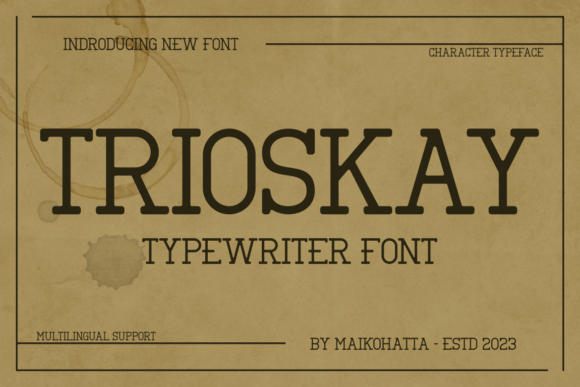
Introducing Trioskay Font, the epitome of elegance and sophistication in the world of design graphics. This mesmerizing serif font, created by the brilliant mind of maikofarazhatta, seamlessly blends traditional elements with the nostalgic charm of a typewriter. Prepare to embark on a journey through time as this font transports you to the golden era of design.
Are you tired of mundane and overused fonts that fail to capture attention? Trioskay Font is here to revolutionize your creative projects. It injects a breath of fresh air into any design, infusing it with a classic feel that is unmatched. With its vintage undertones, this font is the missing puzzle piece that will elevate your work to new heights of aesthetic brilliance.
Imagine the impact of Trioskay Font on your next project. Its captivating curves and exquisite details will effortlessly draw the eye of your audience, leaving them in awe of your impeccable taste and style. Whether you're designing a logo, a poster, or a website, this font will imbue your creation with an air of sophistication that is simply irresistible.
But Trioskay Font is not just a pretty face. Its versatility knows no bounds, allowing it to adapt to any design concept you can imagine. From modern minimalism to vintage nostalgia, this font effortlessly embraces every style, making it the perfect companion for any creative endeavor. With just one download, you unlock a world of endless possibilities and creative freedom.
Trioskay Font is not just a font; it's a statement. It speaks volumes about your dedication to quality and your commitment to captivating your audience. It is the secret weapon that will set you apart from the crowd and leave a lasting impression on anyone who lays eyes on your work.